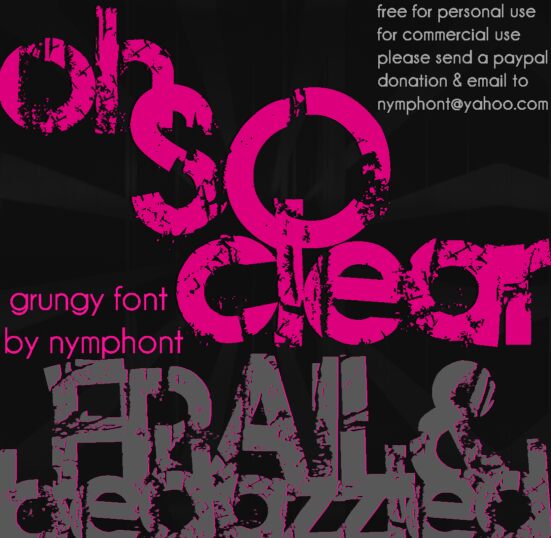
Frail&Bedazzled, designed by Lauren Thompson of Nymphont, is a free eroded display font built from broad, blocky letterforms. Dense shapes are broken by scratches, chips, and large worn-away patches. The damage looks forceful rather than delicate.
Merchandise gives this lettering a fitting surface, especially for distressed T-shirts and skate graphics. Its battered structure also suits music posters and game title screens with an industrial or post-apocalyptic setting. Against rough photography or torn-paper collage, the letters can become part of the texture instead of sitting apart as clean typography.
Frail&Bedazzled
Lauren Thompson